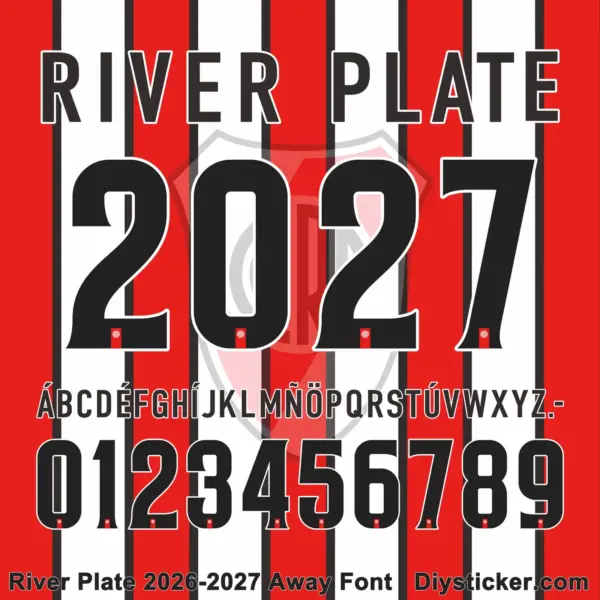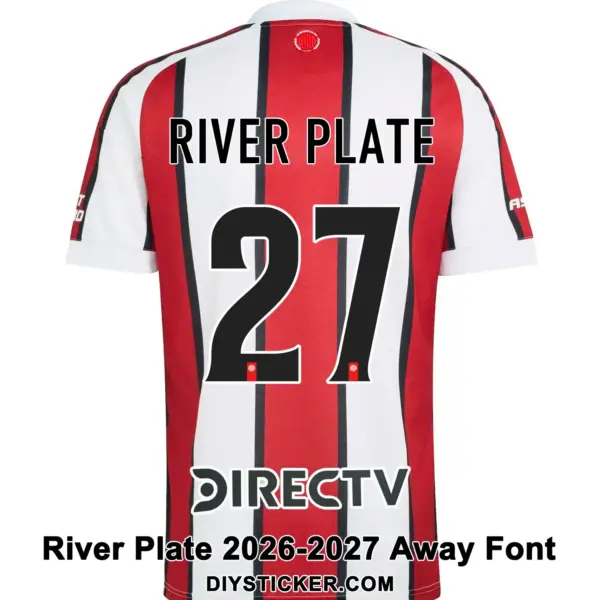
River Plate 2026-2027 Away Font & Numbers Download
Capture the iconic look of Los Millonarios with this premium away kit typography set! This digital asset bundle features the River Plate 2026-2027 Away Font and Numbers in solid black with clean white outlines, elegant tall sans-serif lettering, subtle inner numeric stripe cutouts, and the official CARP crest integrated into the base of each digit.
Complete uppercase alphabet, squad numbers 0-9, and specific diacritic accents.
Elevate Your Kit Customization with the River Plate 2026-2027 Away Font
Upgrade your custom sports apparel catalog with the definitive away match typography for Club Atlético River Plate! This digital typography product delivers the full River Plate 2026-2027 away font style designed for Argentine Primera División and Copa Libertadores campaigns. Featuring tall, condensed lettering outlined in crisp white, sleek curved number strokes with internal vertical stripe accents, and the circular CARP crest neatly embedded at the base of every digit, this layout pops brilliantly against tricolor red, white, and black striped shirt designs.
Comprehensive Character Mapping
A-Z Uppercase Alphabet: Tall, narrow sans-serif letters with refined white outer inline borders engineered for optimal legibility across player nameplates.
0-9 Custom Squad Numbers: Bold black numeric glyphs accented with vertical inner cutouts, white outlines, and the official CARP crest positioned at the bottom stroke.
Special Accents & Diacritics: Complete set of punctuation marks and international accents (
Á,B,Ç,D,É,Ñ,Ö,Ú, etc.) to accurately render names for star players.